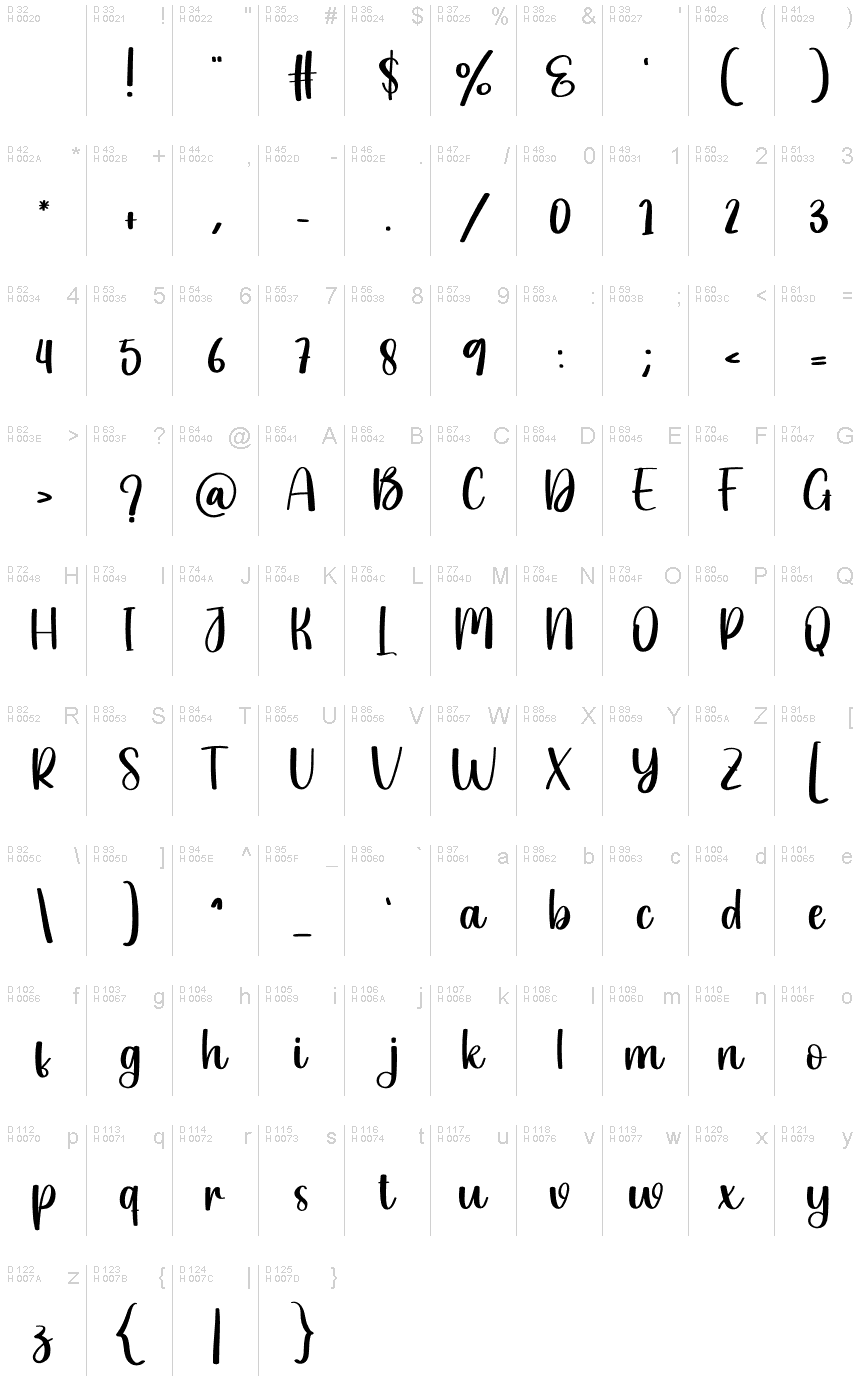
Laugh
Unleash the playful charm of Laugh by Scratchones, a lovely handwritten font with a semi-light touch that radiates warmth and whimsy. Its fluid, expressive lines mimic the spontaneity of ink on paper, making it an ideal choice for invitations, branding, and editorial design. Laugh's approachable elegance ensures that your creative projects will stand out with a personal, handcrafted feel.
Engage your audience with this delightful font that blurs the line between digital precision and artisanal grace.